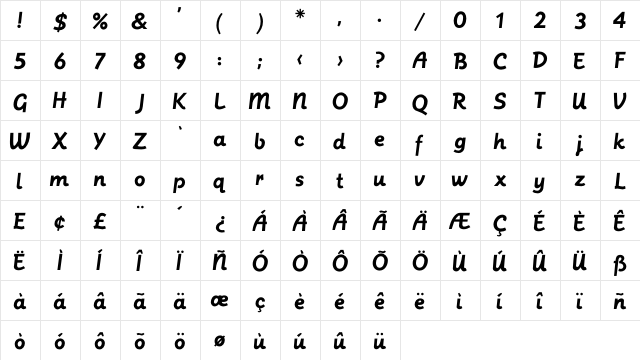
Postface Medium
Design Context for Postface Typeface
Postface takes a measured approach to typography — its balanced proportions and neutral character make it a reliable workhorse for both digital and print work.